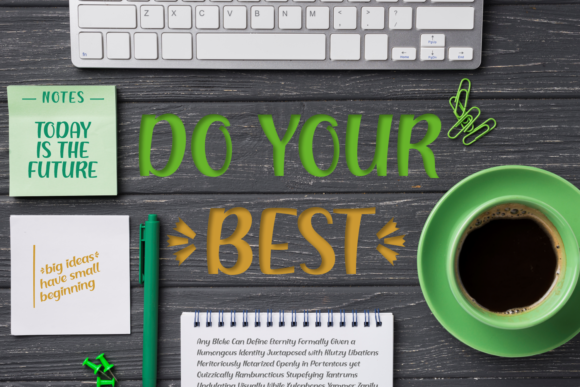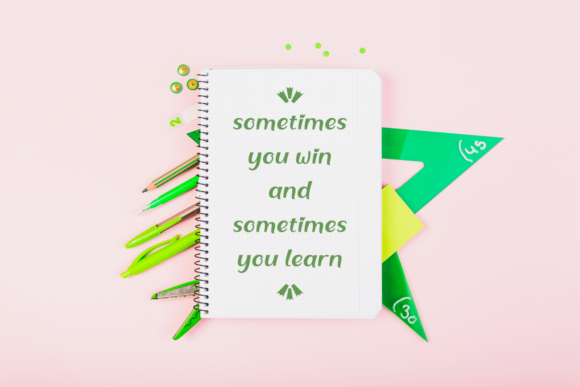
Delliva Font: Elevate Your Designs with Elegance and Simplicity
Delliva is a stunning display font that embodies the perfect blend of simplicity and elegance. This beautiful font is designed to bring your creative ideas to life, making it an ideal choice for designers and crafters looking to add a touch of sophistication to their projects. In this article, we’ll dive into the world of Delliva Font, exploring its features, benefits, and uses, as well as provide tips on how to make the most of this incredible font.
The Story Behind Delliva Font
Delliva Font is a carefully crafted typeface that boasts a clean and minimalist aesthetic. Its simplicity is what makes it so versatile, allowing it to be used in a wide range of design applications, from elegant branding and advertising to beautiful packaging and digital media. The font’s elegant lines and curves create a sense of luxury and sophistication, making it perfect for designers who want to add a touch of high-end style to their work.
Key Features of Delliva Font
- Simple and Elegant Design: Delliva Font features a clean and minimalist design that exudes elegance and sophistication.
- Versatile: This font is perfect for a wide range of design applications, including branding, advertising, packaging, and digital media.
- High-Quality: Delliva Font is a high-quality font that is designed to deliver exceptional results, even at large sizes.
- Easy to Read: The font’s clear and legible design makes it easy to read, even at small sizes.
Benefits of Using Delliva Font
So, why should you choose Delliva Font for your next design project? Here are just a few benefits of using this amazing font:
- Adds Elegance and Sophistication: Delliva Font adds a touch of elegance and sophistication to any design project, making it perfect for designers who want to create high-end looking work.
- Versatile: This font can be used in a wide range of design applications, making it a great addition to any designer’s font library.
- High-Quality: This font is designed to deliver exceptional results, even at large sizes, making it perfect for use in a variety of design applications.
Using Delliva Font in Your Designs
So, how can you use Delliva Font in your designs? Here are a few ideas to get you started:
- Branding and Advertising: Use Delliva Font to create elegant and sophisticated branding and advertising materials, such as logos, business cards, and brochures.
- Packaging Design: Add a touch of luxury and sophistication to your packaging designs with Delliva Font.
- Digital Media: Use Delliva Font to create beautiful and elegant digital media, such as social media graphics, website headers, and more.
- Print Design: Delliva Font is perfect for use in a variety of print design applications, including posters, flyers, and more.
Tips and Tricks for Getting the Most out of Delliva Font
Here are a few tips and tricks for getting the most out of Delliva Font:
- Experiment with Different Sizes: Delliva Font looks great at a variety of sizes, so don’t be afraid to experiment with different sizes to find the one that works best for your design.
- Pair it with Other Fonts: Delliva Font pairs well with a variety of other fonts, so try pairing it with some of your favorite fonts to create a unique and interesting look.
- Use it to Create Contrast: Use Delliva Font to create contrast in your designs by pairing it with images or other design elements.
Delliva Font is a simple and elegant display font that is perfect for designers and crafters looking to add a touch of sophistication to their projects. With its clean and minimalist design, versatility, and high-quality construction, Delliva Font is an ideal choice for a wide range of design applications. Whether you’re looking to create elegant branding and advertising materials, beautiful packaging designs, or stunning digital media, Delliva Font is the perfect choice. So why wait? Add Delliva Font to your font library today and start creating stunning designs that will leave a lasting impression!